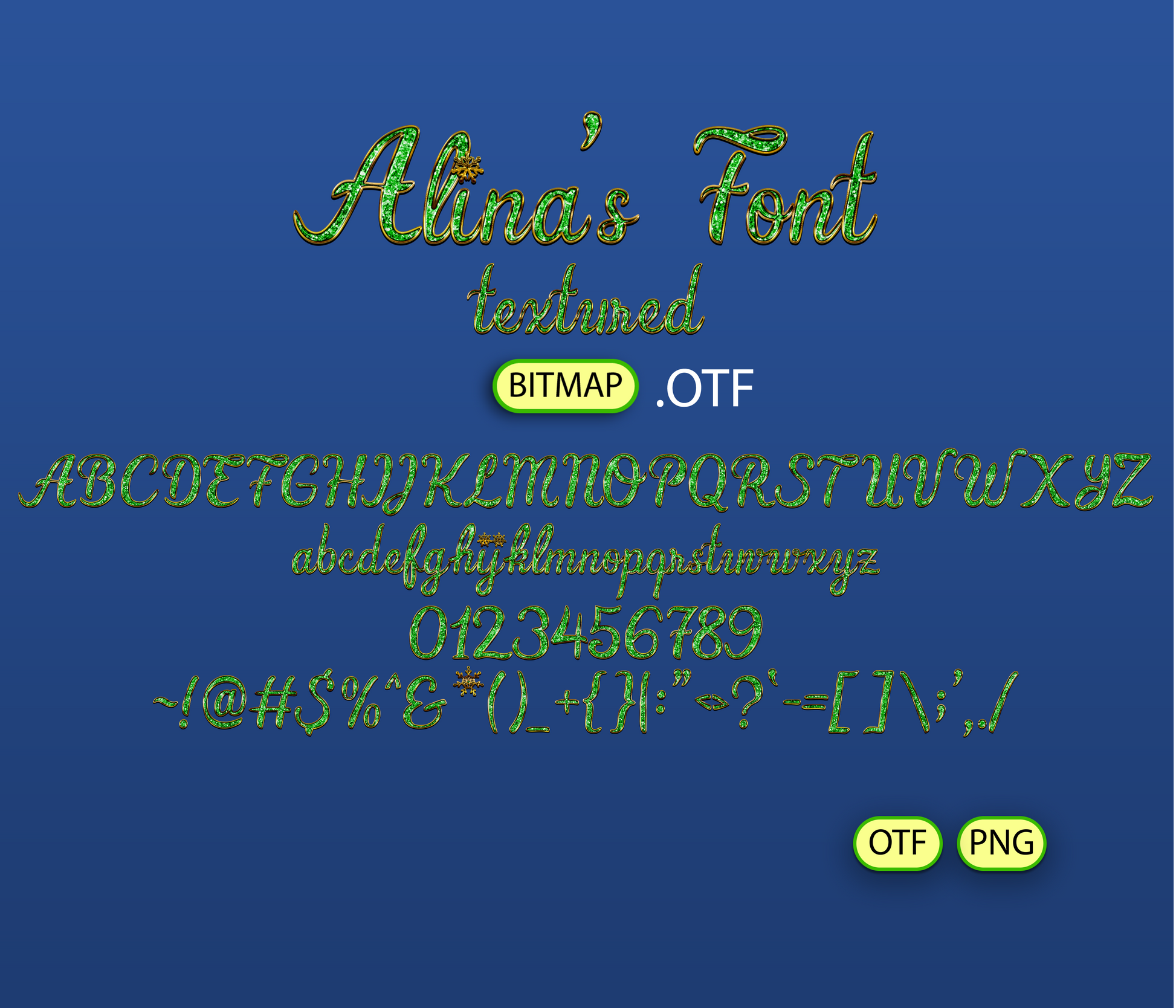
Sparkle Christmas Glitter Font Textured
Sparkle Christmas Font Glitter
Step into the dazzling world of glamorous holiday celebrations with our Sparkle Christmas Font Glitter, capturing the essence of shimmering festive cheer and sparkling seasonal traditions. Perfect for holiday crafters, sublimation designers, small business owners, and creative professionals, this font brings the bright, enchanting spirit of glittering Christmas to your projects. Create heartwarming greeting cards, merchandise, or digital content with the radiant energy of the holiday season.
Festive Multicolor Typography for Holiday Crafts & Seasonal Design
Our Sparkle Christmas Font Glitter features vibrant, shimmering letterforms with holiday-themed glitter textures reflecting the world of glamorous decorations and dazzling seasonal joy.
- Event Promotions: Create enchanting invitations, posters, and banners for Christmas parties, holiday markets, and seasonal gatherings that capture the spirit of sparkling festive celebration
- Merchandise Design: Perfect for holiday apparel, ornament tags, gift packaging, and accessories that showcase the glamorous aesthetic of glittering Christmas magic
- Digital Media: Enhance websites, blogs, and social media with dazzling headers and graphics that express the warmth of shimmering holiday traditions
- Craft Content: Add authentic sparkle charm to greeting cards, sublimation projects, and creative designs inspired by glittering Christmas festivities
- Personal Projects: Bring seasonal joy to scrapbooking, DIY crafts, and home decor inspired by the world of glamorous holiday celebrations
Our font pays tribute to the iconic world of glamorous holiday traditions and sparkling festive design, empowering your projects with its dazzling and enchanting spirit. Whether crafting seasonal materials, designing Christmas products, or adding a glittering touch to personal projects, this font communicates the heartwarming essence of shimmering holiday magic. Ready to inject sparkle Christmas cheer into your creations? This font is your key to radiant, impactful design.